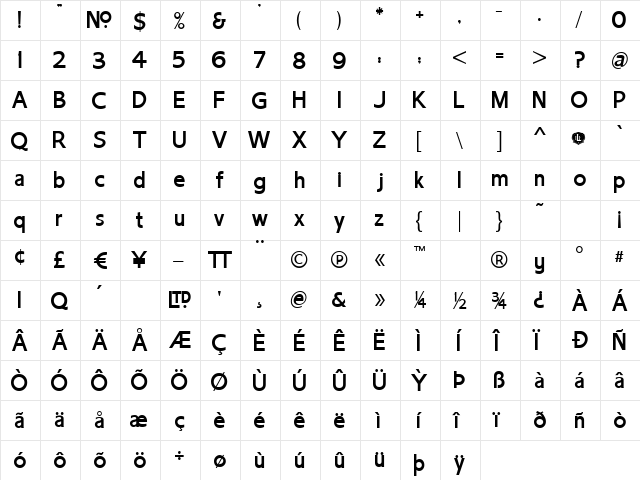
LHF Chesham Sans SLIM Regular
Design Context for LHF Chesham Sans SLIM Typeface
LHF Chesham Sans SLIM offers clean, dependable letterforms without strong stylistic allegiance, making it a practical choice for designers who need flexibility.
Pro Tip: Use LHF Chesham Sans SLIM in both headline and body roles to test its range before committing to a single application.